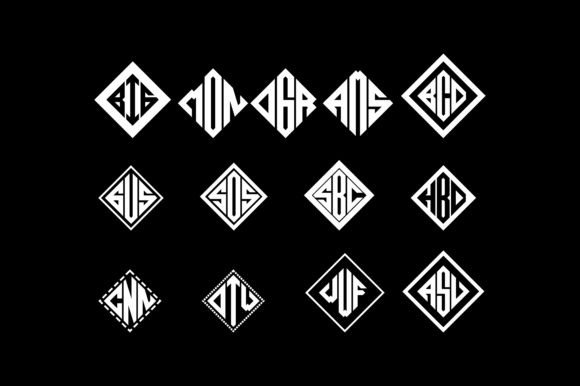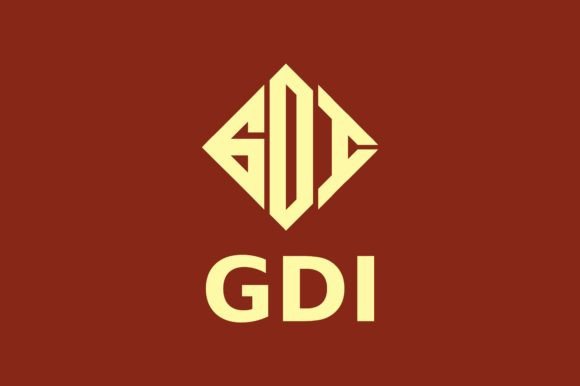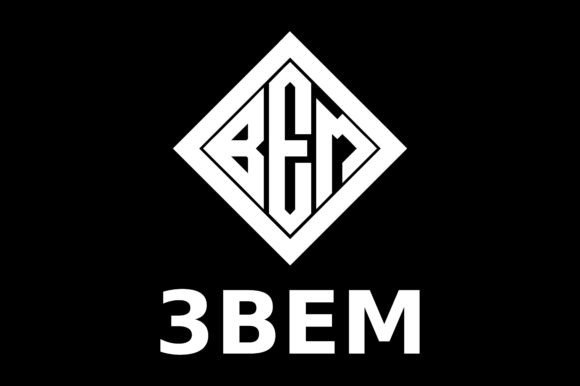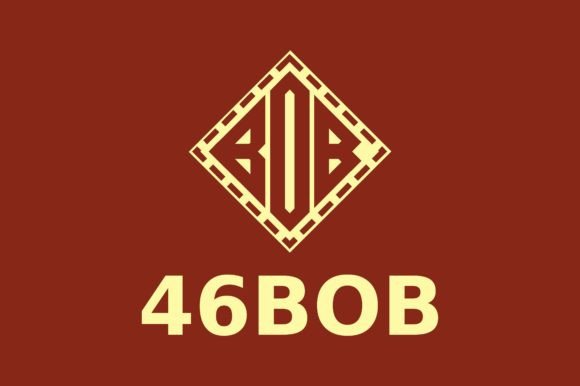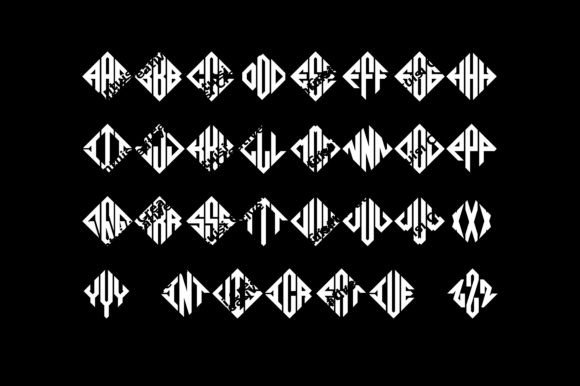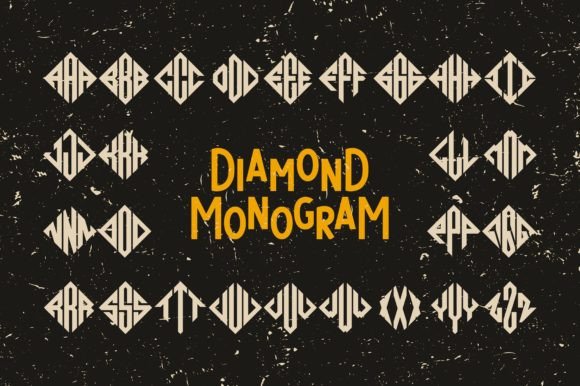
Diamond Monogram Font: Elevate Your Designs with Elegance and Sophistication
In the world of typography, a well-chosen font can make all the difference in transforming a design from ordinary to extraordinary. For designers and crafters seeking a unique and charming display font, look no further than the Diamond Monogram Font. This stunning font is designed to add a touch of elegance and sophistication to any project, making it perfect for a wide range of applications.
What Makes Diamond Monogram Font Special?
Diamond Monogram Font is a distinctive and stylish display font that boasts a unique approach to three-word calligraphy. Its intricate and beautiful style of writing is sure to capture attention and leave a lasting impression. Whether you’re working on a logo, branding project, or simply looking to add some flair to your digital or print materials, this font is sure to bring your ideas to life.
One of the standout features of Diamond Monogram Font is its PUA (Private Use Area) encoding. This means that accessing the font’s amazing glyphs and ligatures is incredibly easy. With PUA encoding, you can effortlessly navigate the font’s extensive character set, allowing you to experiment with different combinations and arrangements to find the perfect look for your project.
Diamond Monogram Font is an ideal choice for designers and crafters looking to add a touch of luxury and sophistication to their work. Whether you’re creating:
- Digital and print advertisements
- Stationery and greeting cards
- Craft projects, such as scrapbooking and DIY art
This versatile font is sure to become a go-to in your design toolkit.
Key Features of Diamond Monogram Font
- Unique and charming display font
- Distinctive three-word calligraphy style
- Perfect for a wide range of design projects
- Elegant and sophisticated aesthetic
Tips for Using Diamond Monogram Font
To get the most out of Diamond Monogram Font, here are a few tips to keep in mind:
- Experiment with different sizes and arrangements to find the perfect balance for your design
- Pair with complementary fonts to create visual interest
- Take advantage of the font’s extensive character set to add unique touches to your project
- Use the font’s ligatures and glyphs to add texture and depth to your design
Diamond Monogram Font is a truly exceptional display font that is sure to elevate your designs to new heights. With its unique and charming style, PUA encoding, and versatility, it’s an ideal choice for designers and crafters looking to add a touch of elegance and sophistication to their work. So why wait? Download Diamond Monogram Font today and discover the perfect way to bring your project ideas to life!